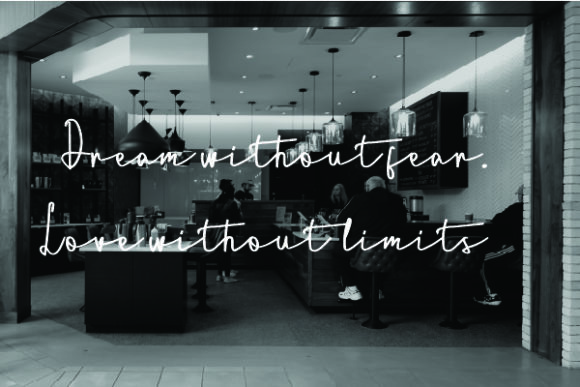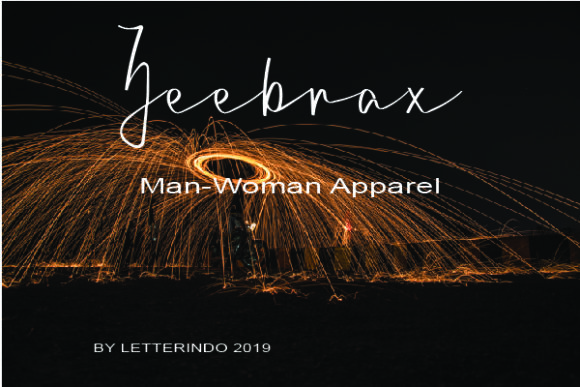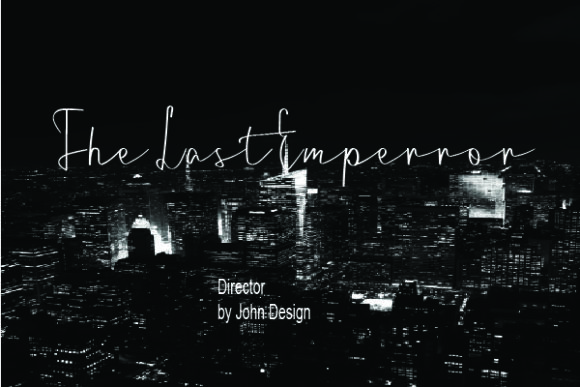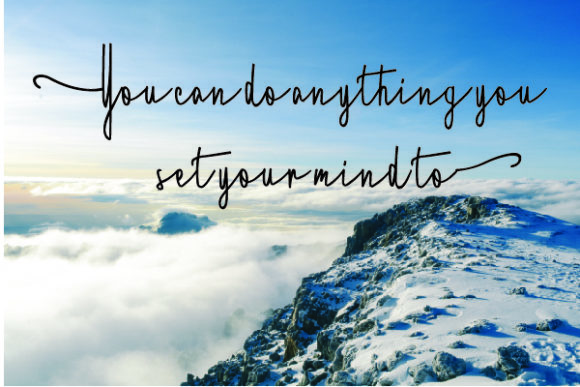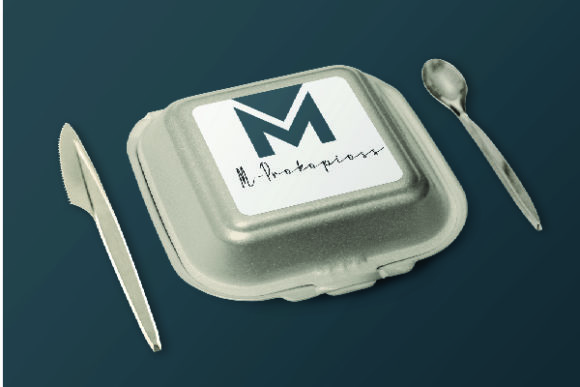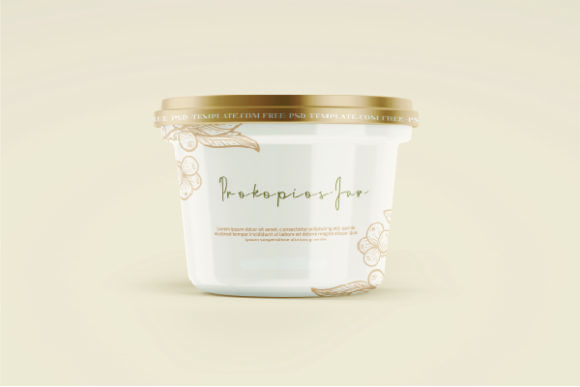
Introduction to Prokopioss Font
Have you ever found yourself in the midst of a creative project, staring at a blank canvas, and struggling to find the perfect design element to bring it all together? You’re not alone. We’ve all been there, searching for that one special something to elevate our work and make it truly stand out. For designers, the quest for the perfect font is a never-ending journey, and it’s a quest that can often be frustrating and time-consuming.
But what if you stumbled upon a font that not only met your needs but exceeded them? A font that was both modern and authentic, with a unique style that added depth and character to any design. Welcome to the world of Prokopioss Font, a high-quality design resource that’s about to take your crafting designs to the next level.
Key Features of Prokopioss Font
- Unique, high-quality design ideal for creative projects, offering a distinctive look and feel.
- Perfect for use in graphic design, typography, and branding projects, adding a touch of elegance and sophistication.
Honest Review: Prokopioss Font
I recently had the opportunity to work with the Prokopioss Font, and I must say, it’s a great addition to any designer’s toolkit. This font is perfect for a creative project that requires a high-quality, elegant script.
- Beautiful, elegant script – the Prokopioss Font is perfect for titles, headings, and any other element that requires a touch of sophistication.
- High-quality design – the font is crisp and clear, making it ideal for use in both print and digital design.
- Transparent background – this feature makes it easy to customize the font to fit your design needs.
While the Prokopioss Font is a great addition to any designer’s toolkit, there are a few limitations to consider.
- Limited character set – the font is limited to a specific character set, which may not be suitable for all design projects.
- No support for bold or italic styles – while the font is elegant, it may not be suitable for projects that require bold or italic text.
Overall, I’m impressed with the Prokopioss Font. It’s a high-quality design resource that’s perfect for a creative project. While it has some limitations, it’s an excellent choice for designers who need an elegant script font.
Use the Prokopioss Font in conjunction with a high-quality image or background to create a visually appealing design. Experiment with different font sizes and colors to find the perfect balance for your creative project.
The Prokopioss Font is ideal for use in various design projects, including logos, business cards, and social media graphics. Its transparent background makes it perfect for use on images or videos, adding a touch of elegance and sophistication to your design.